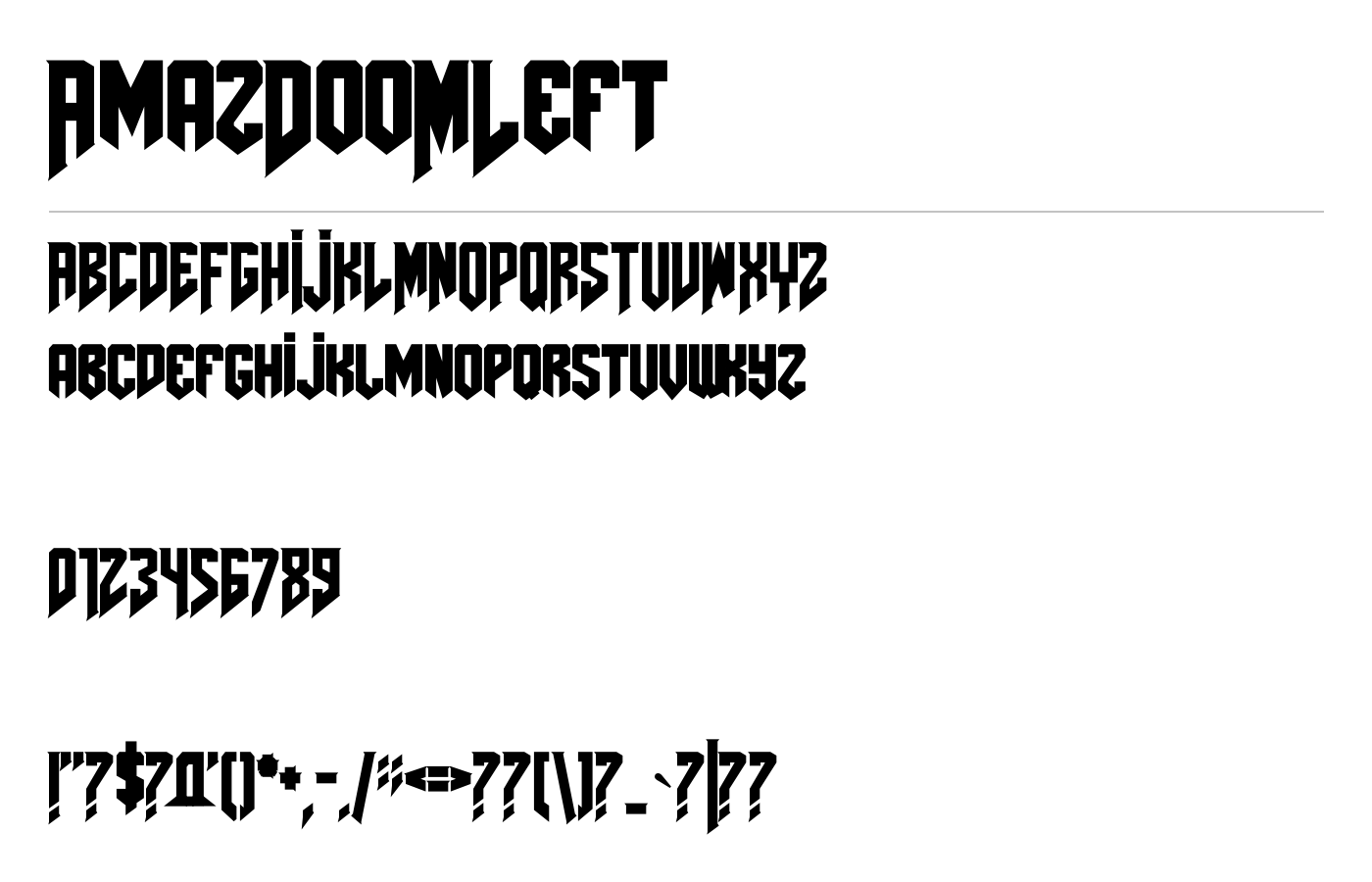
AmazDooMLeft is a bold, condensed display font with sharp, angular edges and a dramatic, gothic-inspired style. Its high contrast and aggressive geometric shapes give it a strong, edgy personality perfect for striking headlines, logos, or branding that aims to make a powerful impact. This font works best in creative, edgy contexts such as music posters, gaming, or any design seeking a dark, modern vibe.
AmazDooMLeft Font
About AmazDooMLeft Font